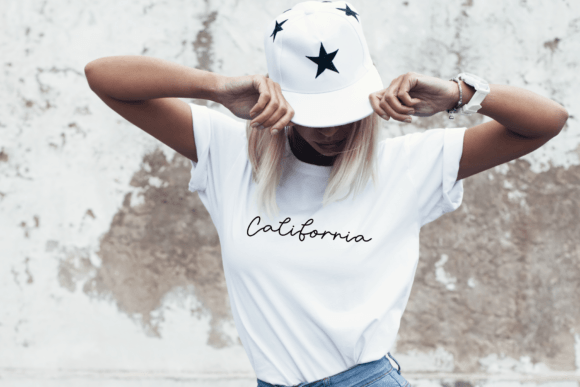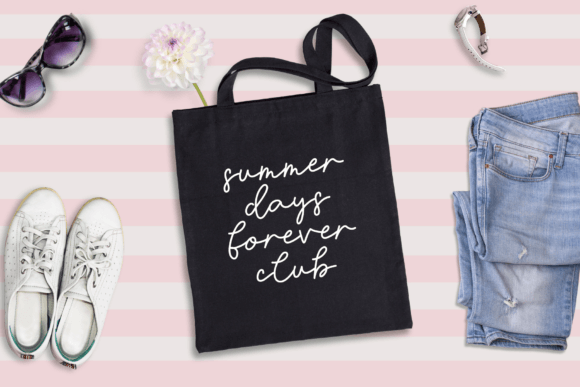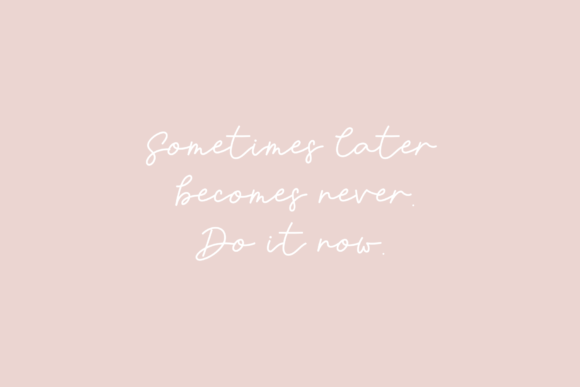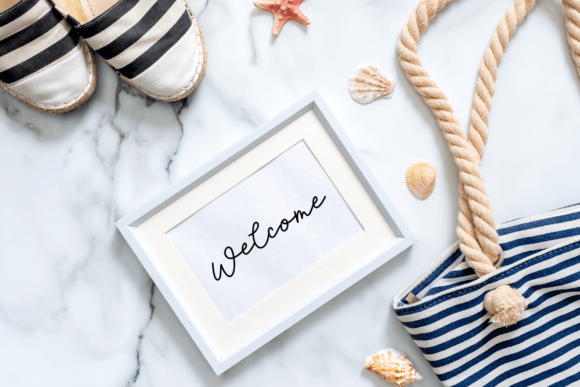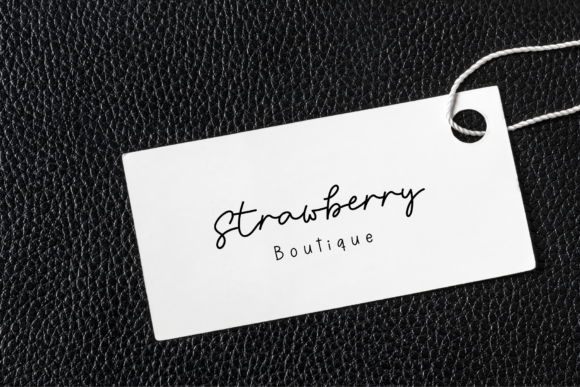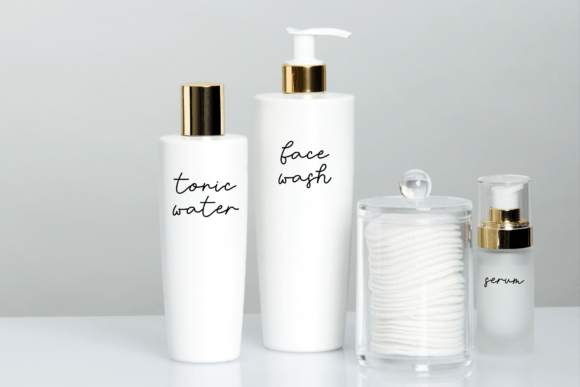
Introduction to Liquorice Font
Have you ever found yourself stuck in a creative rut, searching for the perfect font to elevate your design project? I know I have. It was on a particularly frustrating evening, pouring over a plethora of sans-serifs, when I stumbled upon Liquorice Font – a beautifully hand-crafted script that instantly transformed my design.
As a designer, I can attest that the right font can make all the difference in a project’s success. And that’s exactly what Liquorice Font offers – a high-quality, elegant script that adds an authentic touch to any creative project. Whether you’re working on branding, invitations, or even a personal blog, this font is sure to impress with its unique, hand-lettered design. And the best part? It’s now available as a free download, making it an invaluable design resource for any project.
With Liquorice Font, you can easily add a transparent background and bring your design to life. Its versatility and sophistication make it an ideal choice for any creative project, from a wedding invitation to a corporate brand identity.
Key Features of Liquorice Font
- Unique, hand-drawn design with a transparent background, making it perfect for creative projects and designs.
- Supports a wide range of languages, including Latin, Cyrillic, and Greek alphabets.
- Perfect for use in creative projects, such as logos, branding, and typography-based designs.
Honest Review: Liquorice Font
I recently stumbled upon the Liquorice Font, and I must say it’s an exciting addition to my design resource collection. The font has a unique, quirky feel to it that’s perfect for creative projects where you want to add a bit of personality.
Here are some aspects where the Liquorice Font shines:
- ✨ Unique character set with a wide range of glyphs and ligatures.
- ✨ High quality design that looks great on a transparent background.
- ⚠️ Limited font weights and styles available.
- ⚠️ Not suitable for body text due to its playful nature.
Overall, the Liquorice Font is a great choice for designers looking to add some whimsy to their creative projects. While it may not be suitable for all design needs, it’s a fantastic option for those who want to create something truly unique.
The Liquorice Font is ideal for creative projects that require a high-quality, unique font. Some common use cases include:
Logo design
Brand identity
Marketing materials
Web design
Tips for Getting the Most Out of the Liquorice Font
Use the Liquorice Font on a transparent background to create a sleek, modern look.
Combine the font with a high-quality image or graphic to add visual interest.
Experiment with different font sizes and colors to achieve the desired effect.
Alternatives to Liquorice Font
The Lobster Font is a popular, cursive font that is ideal for creative projects requiring a touch of elegance. It is available for free download and features a transparent background, making it suitable for various design applications.
Compared to Liquorice Font, Lobster Font has a more refined and sophisticated look, making it a better choice for high-end designs. However, it lacks the bold, playful feel of Liquorice Font.
The Pacifico Font is a beautiful, script font that is perfect for design projects that require a sense of luxury and sophistication. It is available for free download and features a high-quality design that is suitable for a wide range of creative projects.
Can I use the Liquorice Font with a transparent background?
Yes, the Liquorice Font supports transparent backgrounds, making it ideal for designs that require a clear or see-through effect. To use a transparent background, make sure your design software supports it and set the font’s background color to transparent. You can also use the font’s built-in transparency features, if available.